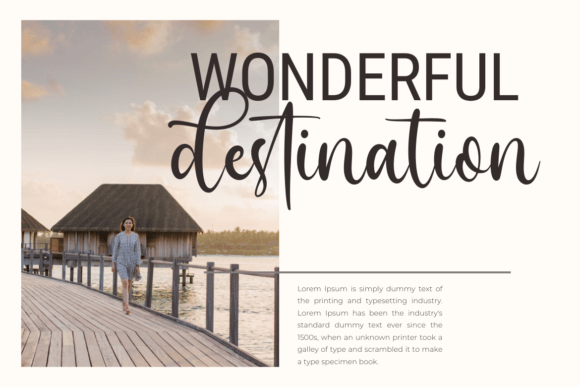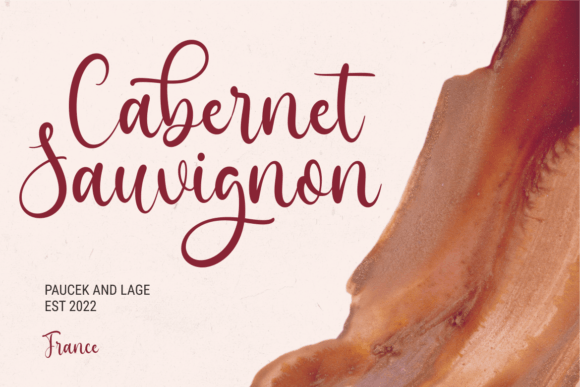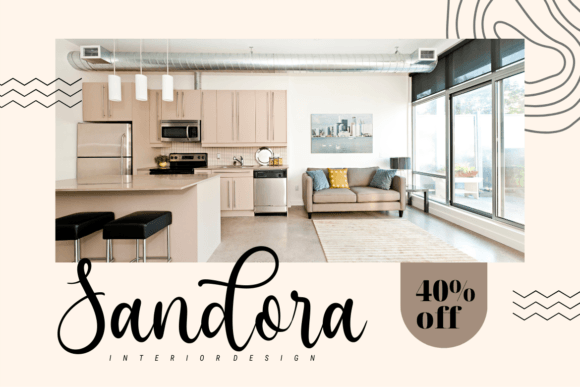
Introduction to Fadeline Font
Fadeline is a lovely, stylish, and greatly detailed handwritten font.
πŸ‘€ Author jinanstd
Very suitable for your Valentine’s theme design, wedding invitations, photography, and logos This font will guarantee a romantic touch to each of your creations.
Fadeline Font offers exceptional quality and versatility, making it a valuable addition to your design toolkit. Whether you’re creating for personal projects or commercial use, Fadeline Font delivers professional results.